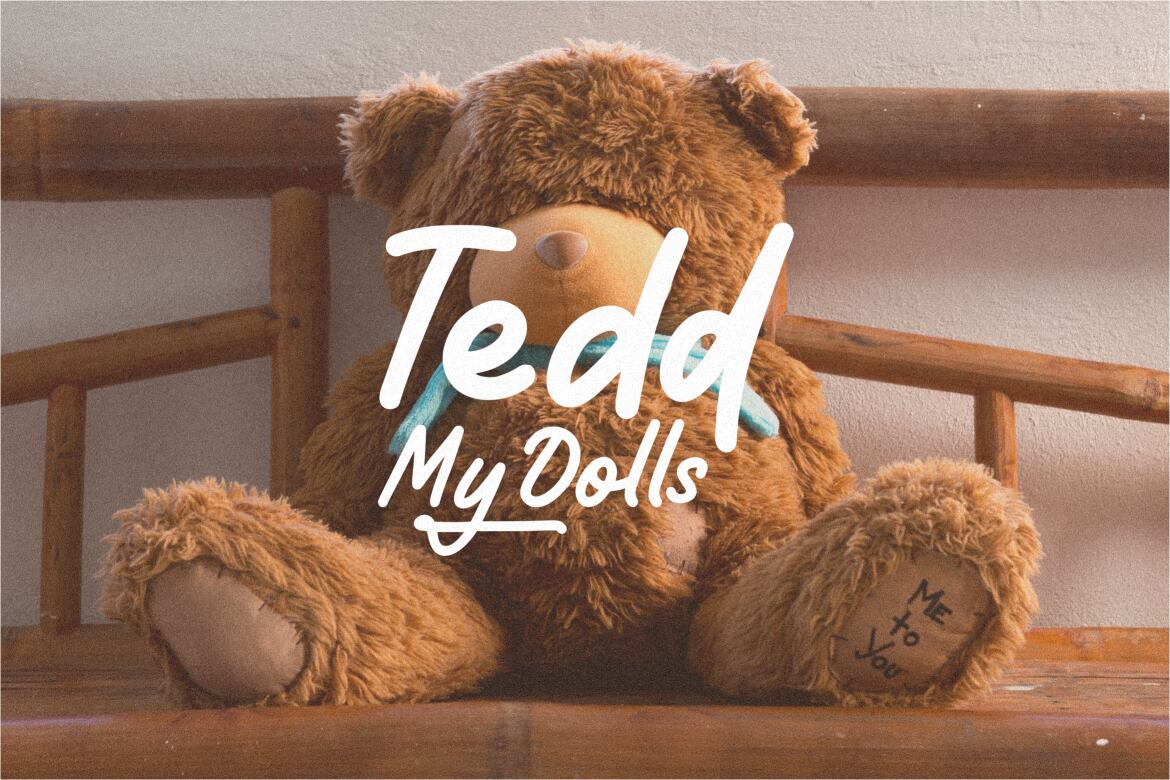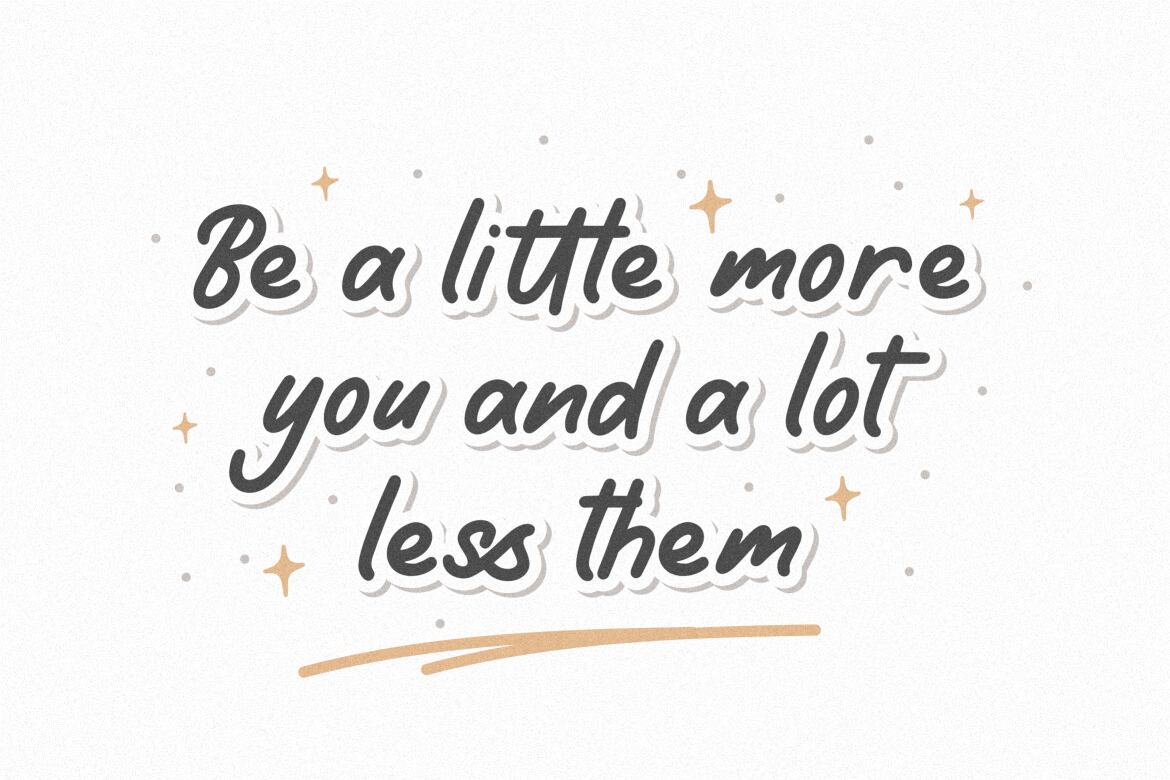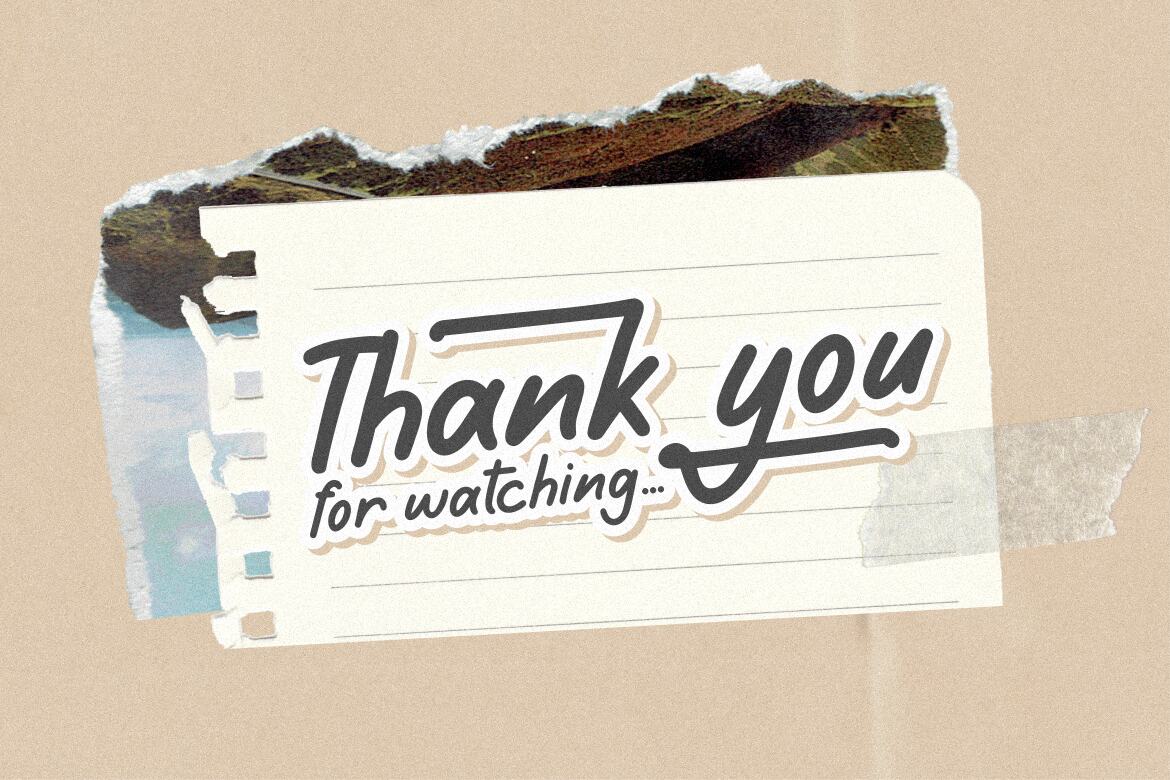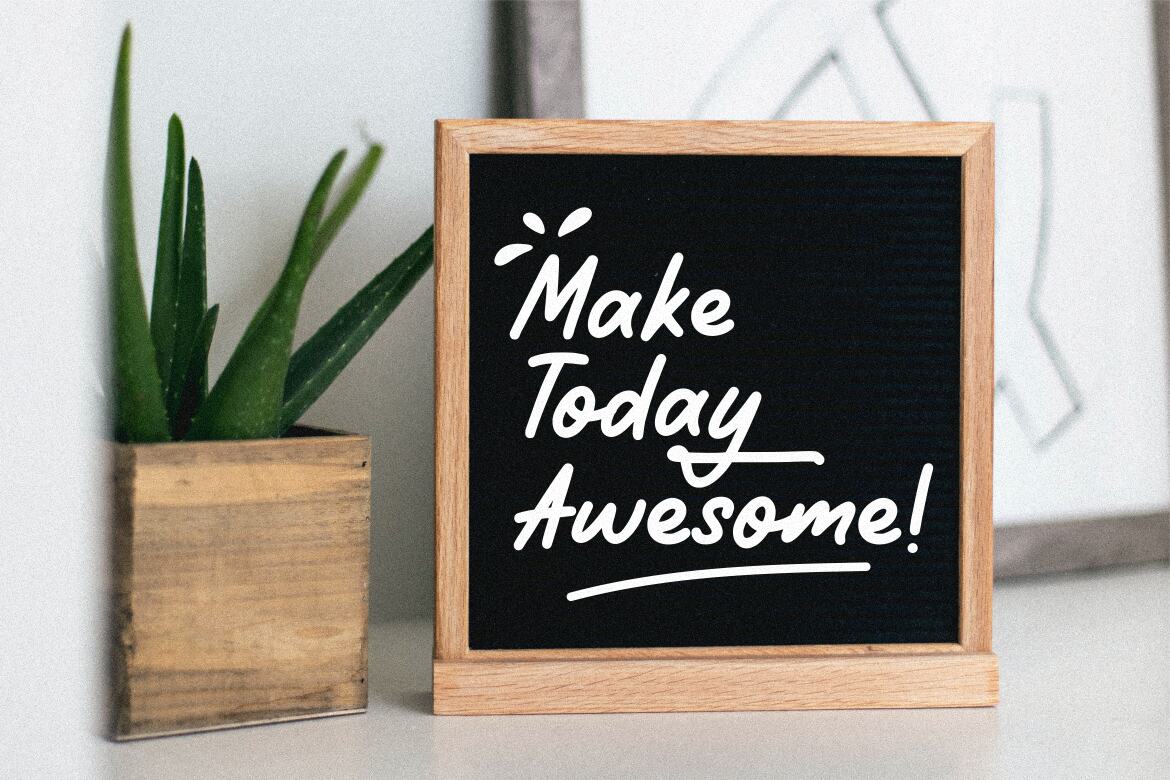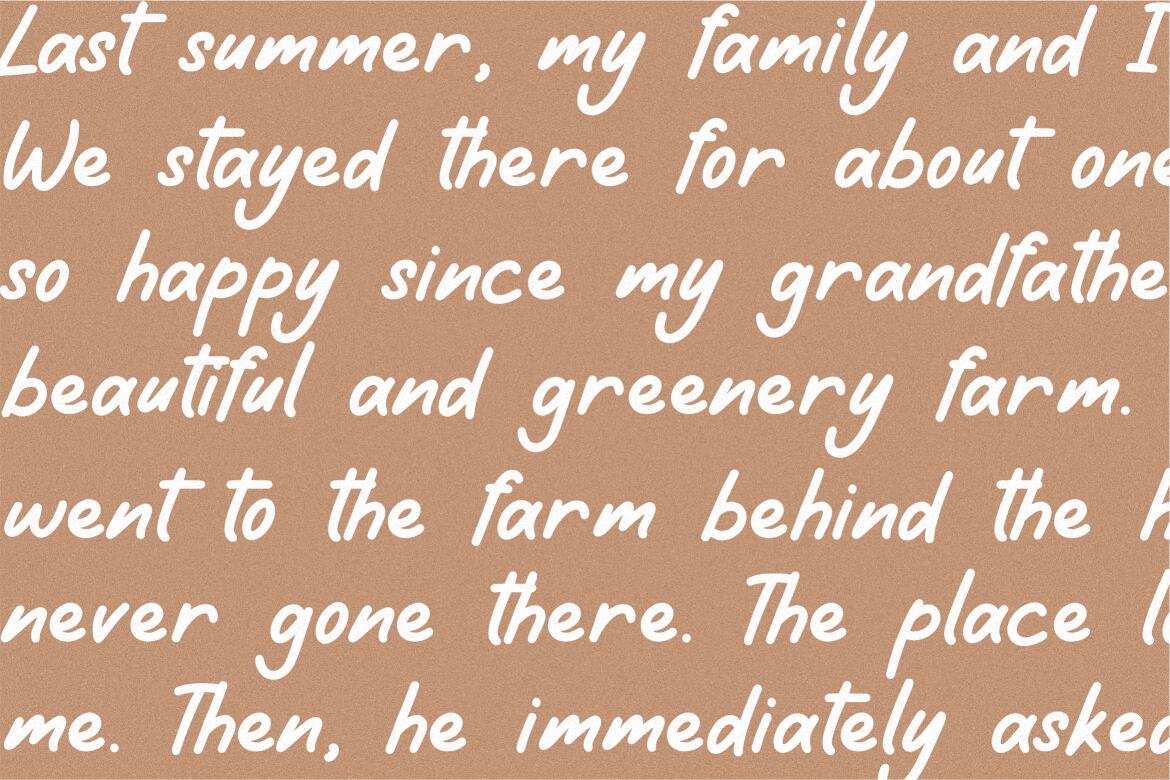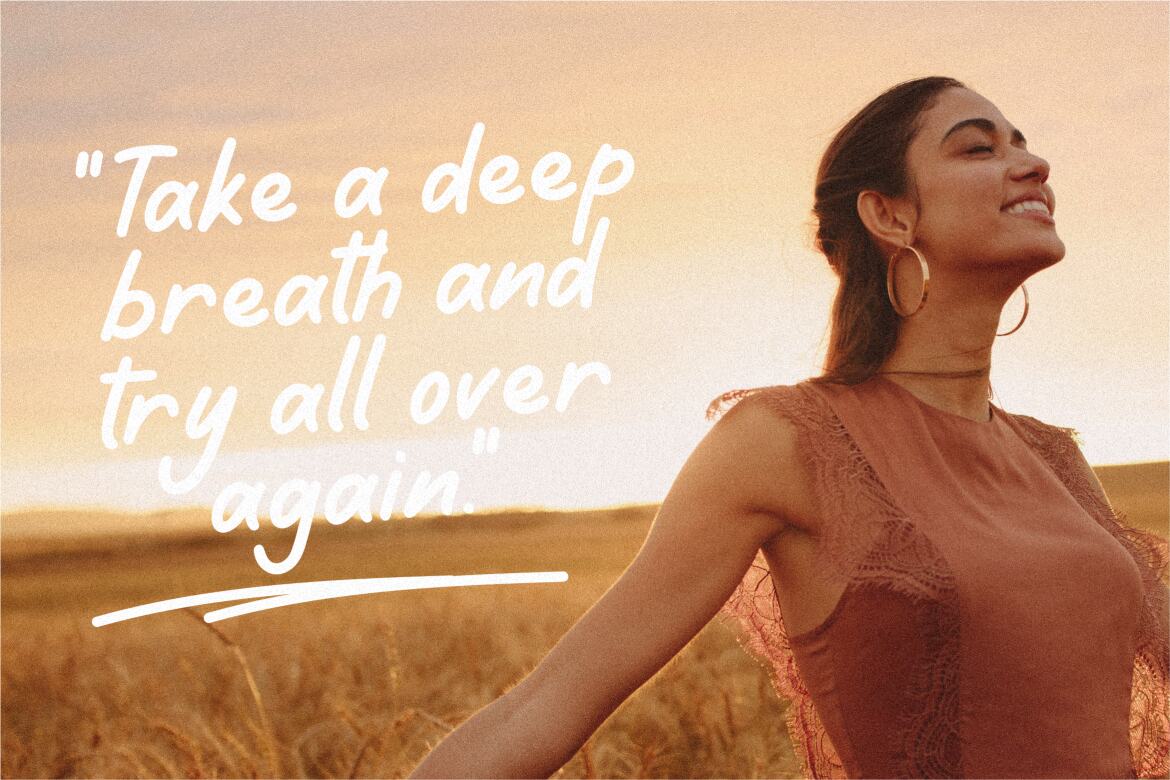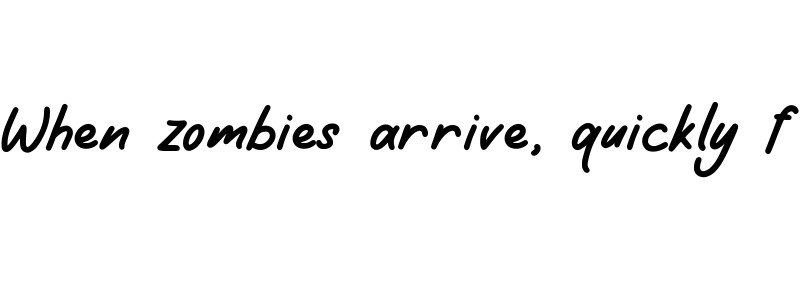
Donnabold - Free Font
Donnabold
Proudly Present, Donnabold
Donnabold is a Fat Monoline Handwritten font
Donnabold is perfect for product packaging, branding project, megazine, social media, wedding, or just used to express words above the background.